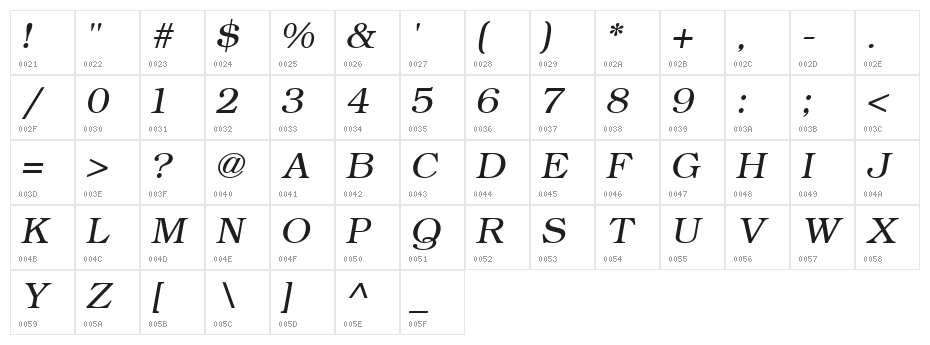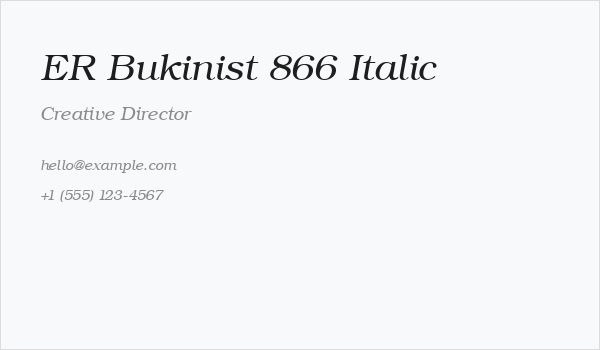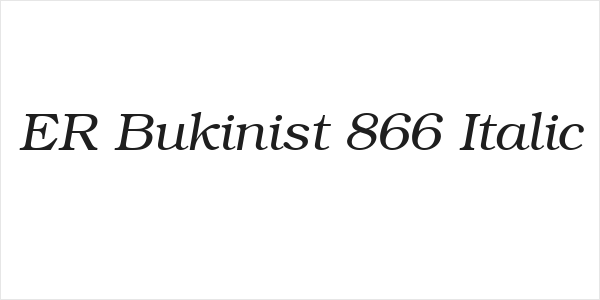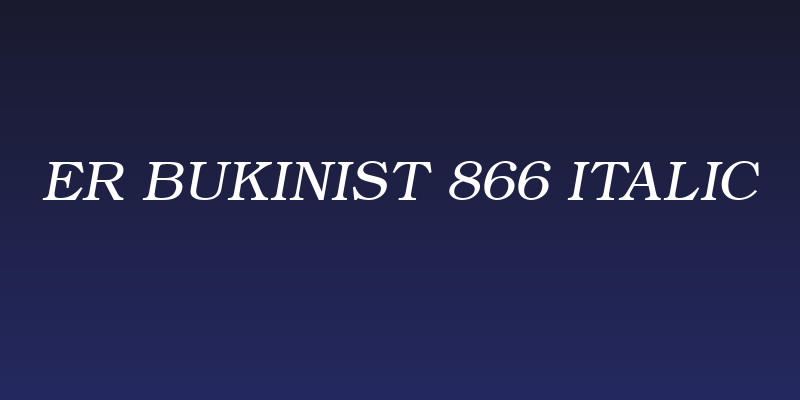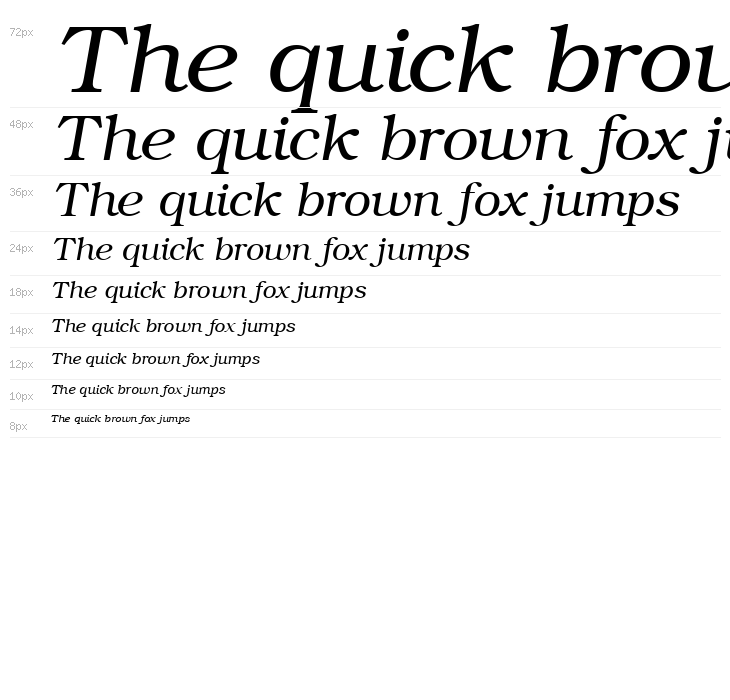
ER Bukinist 866 Italic Font
ER Bukinist 866 Italic Description
This font exhibits a classic serif style with a distinct italic slant, giving it an elegant and sophisticated appearance. The characters are well-defined with moderate contrast between thick and thin strokes, enhancing readability while maintaining a stylish flair. The uppercase letters are slightly taller than the lowercase, providing a balanced and harmonious look. The numerals are proportionate and align well with the overall design, ensuring consistency across different uses. Special characters are crafted with the same attention to detail, making this font versatile for various applications.
| Proposed Projects | Ideal for book covers, formal invitations, branding materials, and editorial design. |